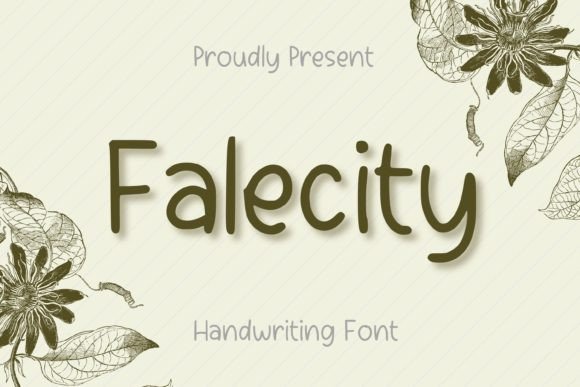
The Birth of a Masterpiece: Falecity Font
Have you ever stared at a blank canvas, pencil in hand, waiting for inspiration to strike? For designers, those moments of creative spark are what drive us to push the boundaries of visual storytelling. And when that spark ignites, it’s a thrill like no other. It’s in those moments that the Falecity Font was born – a captivating typeface that embodies the perfect balance of style and clarity.
Whether you’re elevating your brand’s identity, crafting a logo that tells a story, or simply communicating complex information in a clear and concise manner, Falecity Font is the perfect companion. Its tasteful design makes it an invaluable asset for designers, allowing them to deliver their messages with lasting impact and visual eloquence.
Falecity Font Key Features
- Font Family: Falecity Font is a sans-serif font family that offers a modern and clean look.
- Unique Characteristics: Falecity Font features a unique blend of geometric and organic elements, resulting in a distinctive and modern aesthetic.
Falecity Font Review
Overall, I was quite excited to dive into the Falecity Font. The first thing that caught my eye was its ✨ unique and elegant design ✨. It’s perfect for creating a luxurious and high-end feel in your designs. The font is well-suited for headlines, titles, and even logos.
The Falecity Font is highly versatile and can be used in a variety of contexts, from fashion to finance. Its ✨ beautiful curves and smooth lines ✨ make it a great choice for creating a sophisticated and modern look.
- ✨ Unique and elegant design ✨
- ✨ Highly versatile ✨
- ✨ Beautiful curves and smooth lines ✨
- ⚠️ Limited character set ⚠️
- ⚠️ May not be suitable for body text ⚠️
- ⚠️ May require additional styling for optimal use ⚠️
Overall, I would give the Falecity Font 4 out of 5 stars. It’s a great choice for designers looking to create a luxurious and high-end feel, but it may not be the best option for everyday body text. With a bit of creativity and additional styling, the Falecity Font can be a valuable addition to any design project.
The Falecity font is a versatile, elegant script font suitable for a wide range of applications. To use it, follow these steps:
1. Use the Falecity font in combination with other elegant fonts for a sophisticated look.
2. Experiment with different font sizes and colors to create visual interest.
3. Use the Falecity font for headings and titles to add a touch of elegance.
2. Branding and marketing materials.
3. Luxury product packaging and labels.